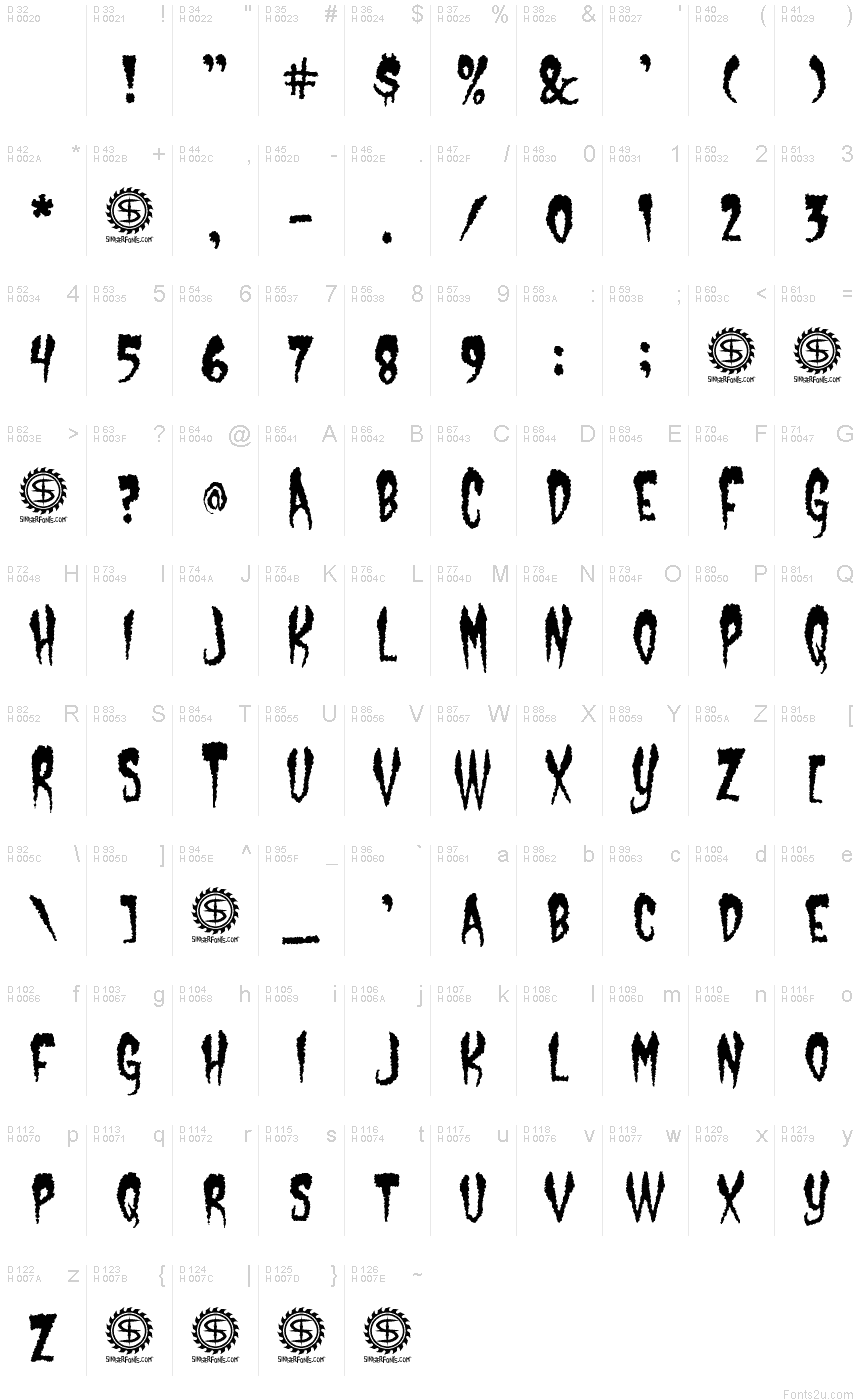
Castle Dracustein
Castle Dracustein font by Chad Savage is a free distorted scary font, a ragged decorative typeface that looks like it was painted in a hurry and left to dry in the dark. The letters feel torn and inky, with rough edges and uneven weight that gives every word a nervous, haunted pulse.
Using Castle Dracustein, your message hits hard on movie posters, haunted-house flyers, Halloween party invites, horror game titles, metal/industrial cover art, spooky merch, and creepy social headers. Keep it large with plenty of breathing room, and pair it with a clean sans like Inter or Helvetica for the details-this free font does the shouting while the supporting text stays readable.